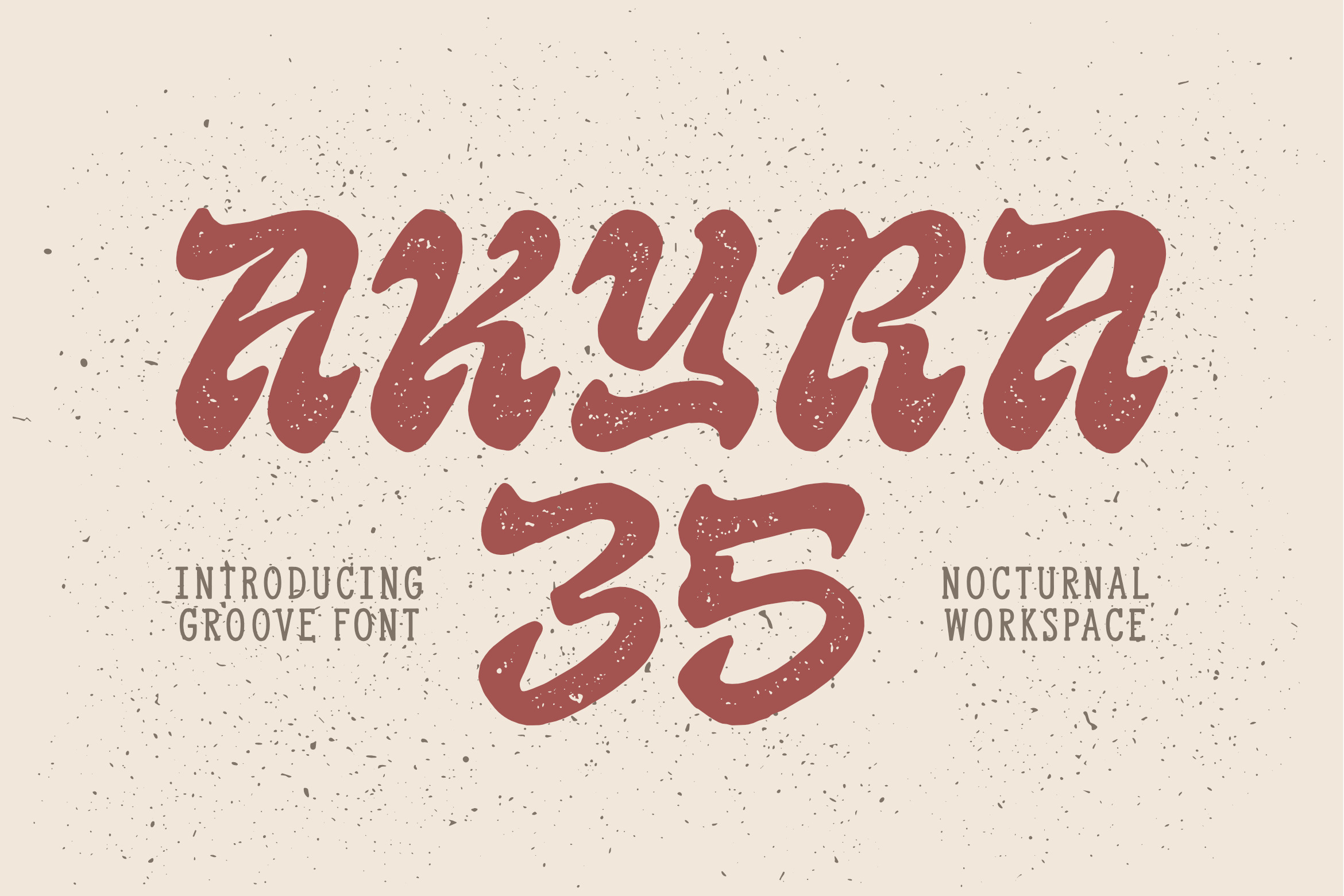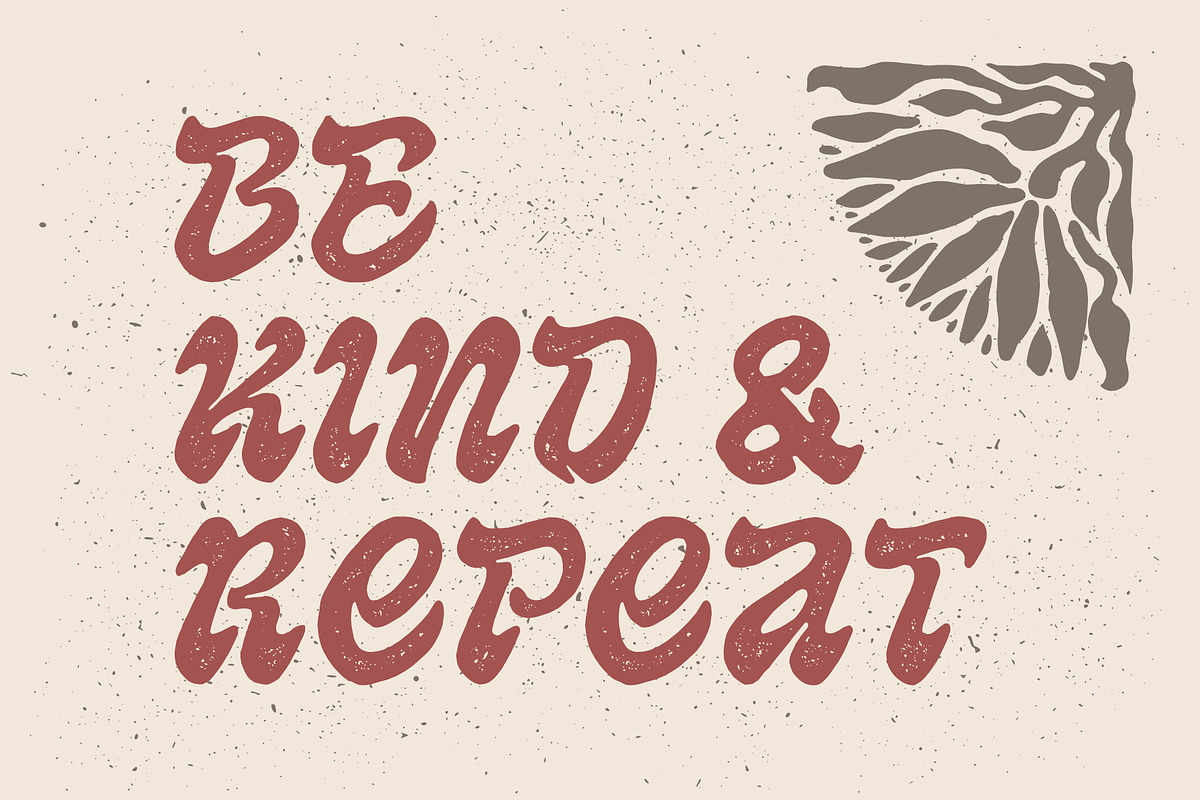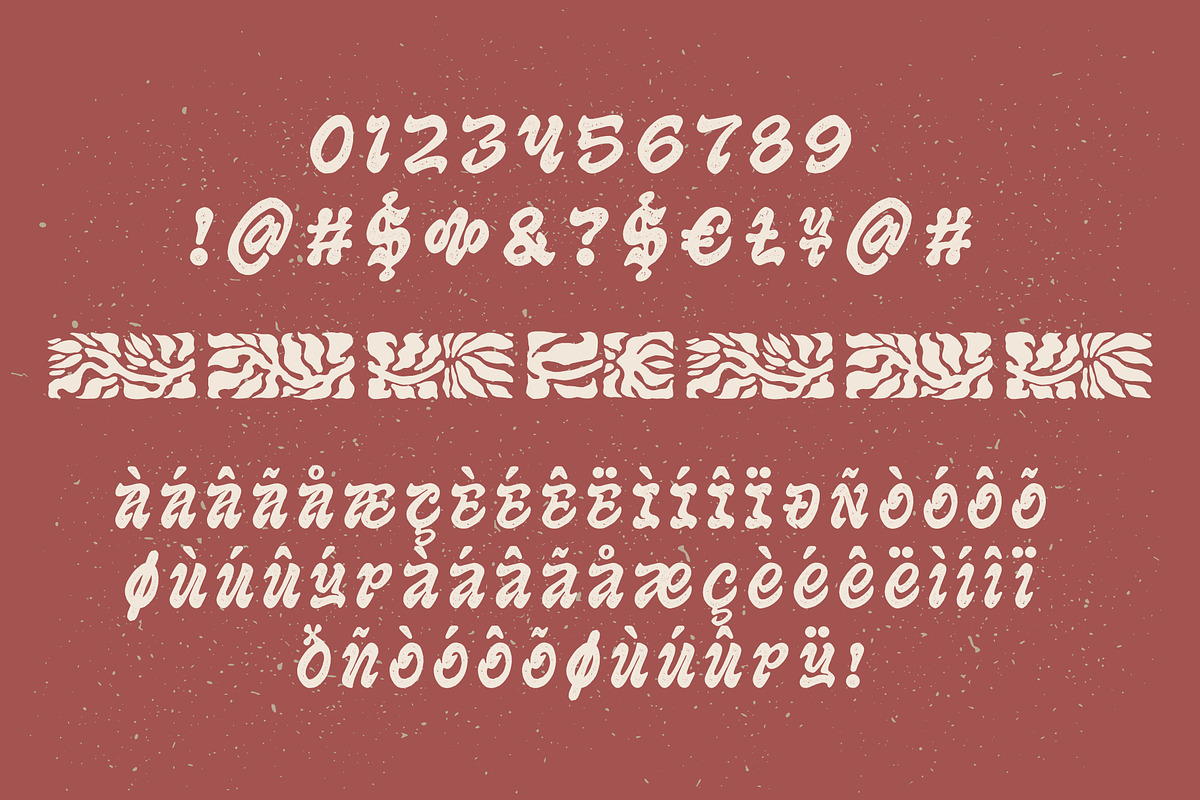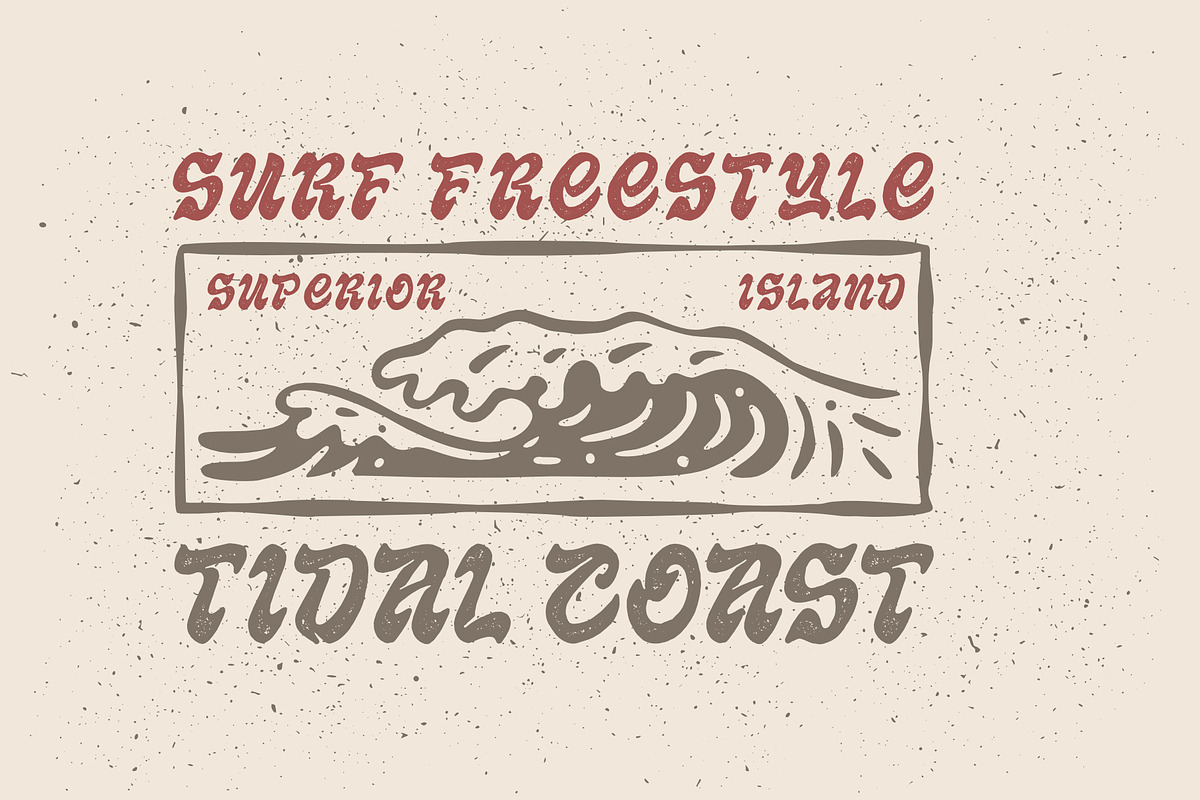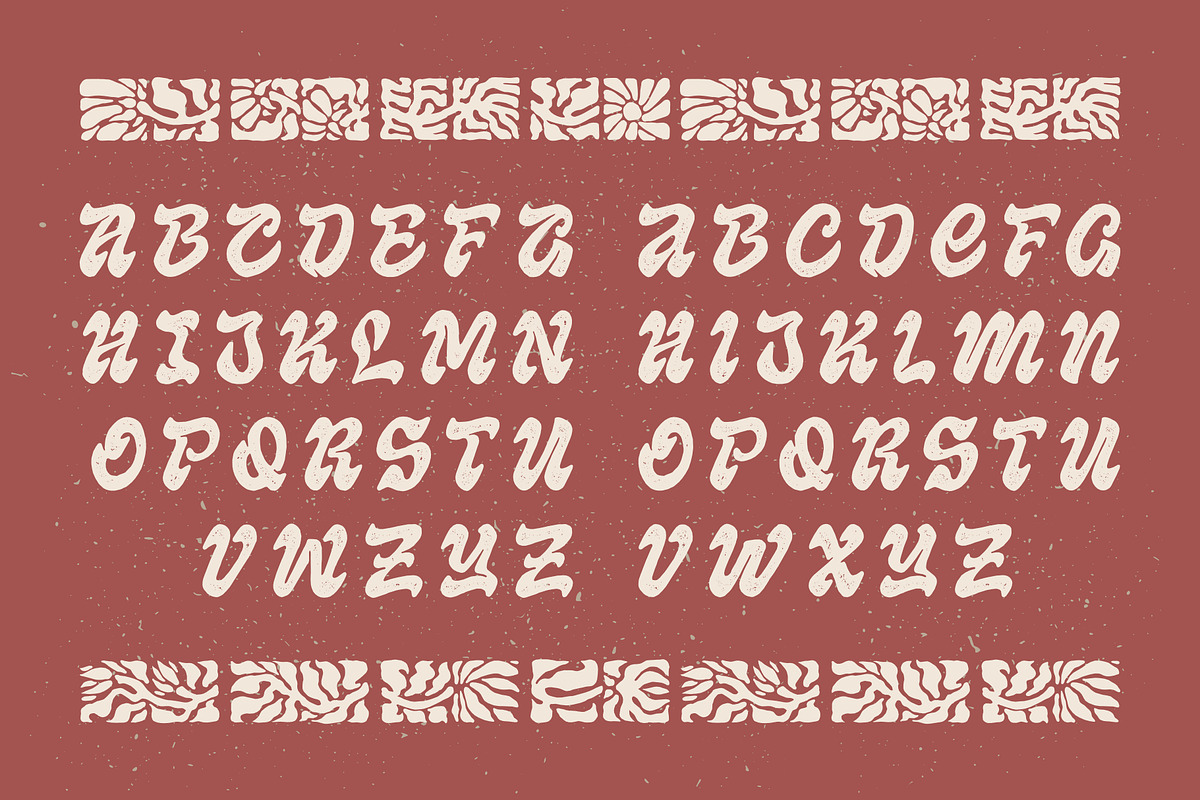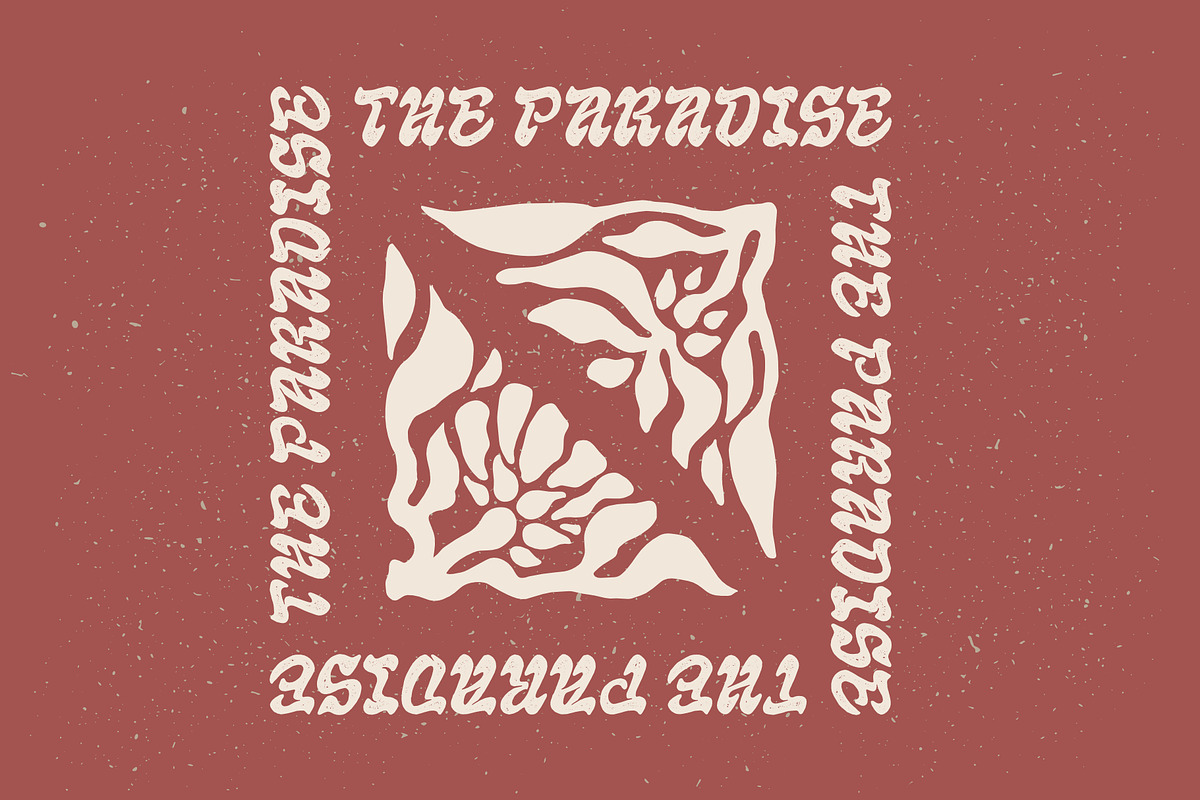
Akyra 35 – Groovy Font
Akyra 35 is a bold groovy brush script font inspired by retro vibes and expressive hand lettering. With its playful curves, organic strokes, and subtle rough texture, this font brings a strong vintage character while staying modern and eye-catching.
Designed to stand out, Akyra 35 works perfectly for headlines, logos, posters, branding projects, album covers, merchandise, and music-related designs. Its funky and energetic style makes it ideal for creative projects that need personality and rhythm.
Whether you’re creating retro branding, bold typography, or expressive display text, Akyra 35 delivers a unique groovy feel that instantly grabs attention.